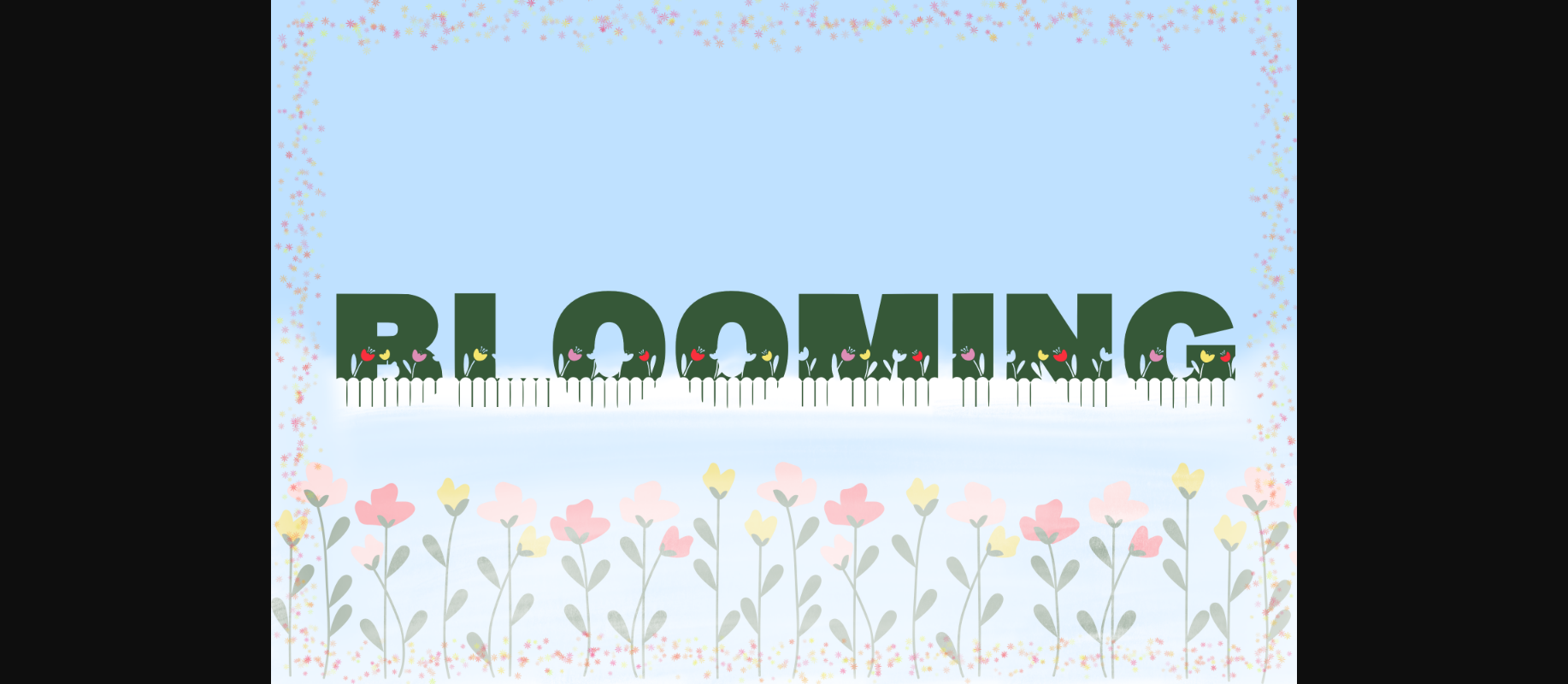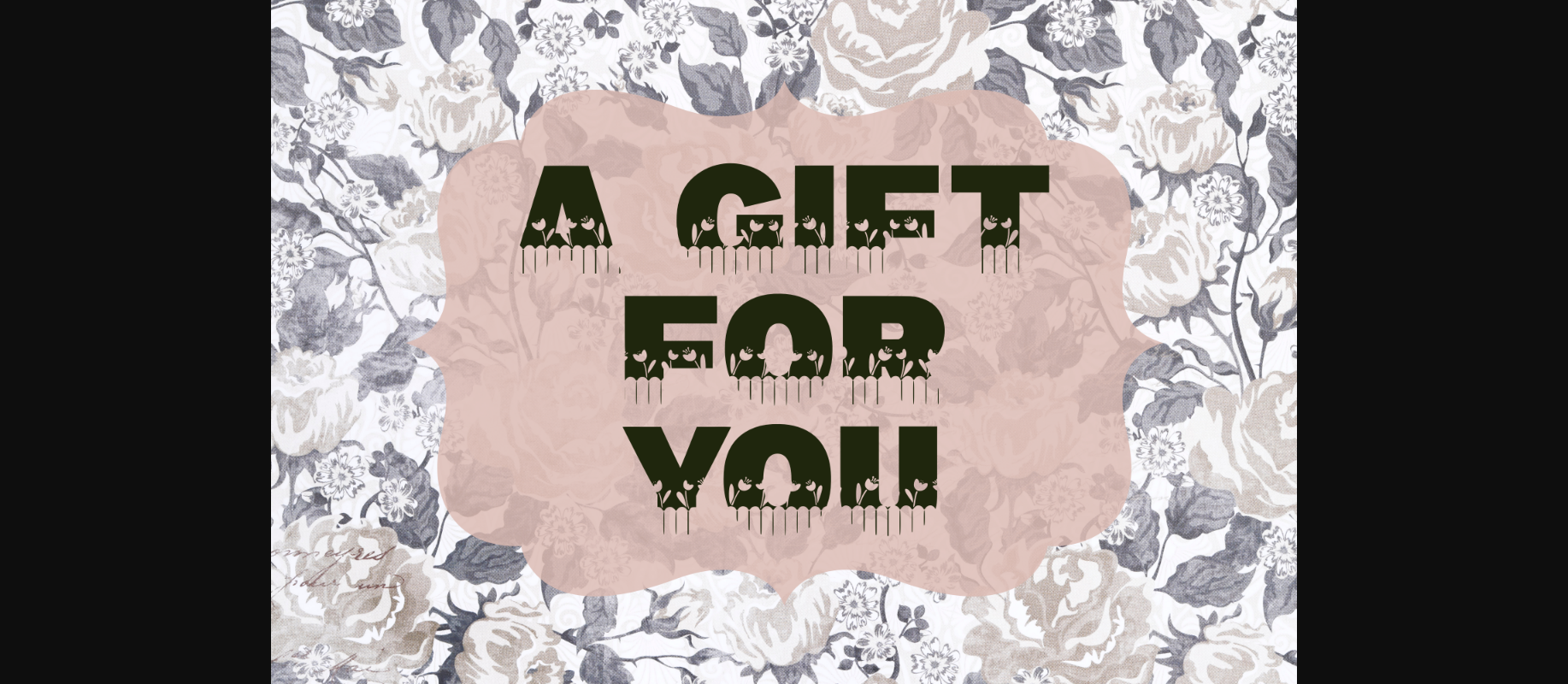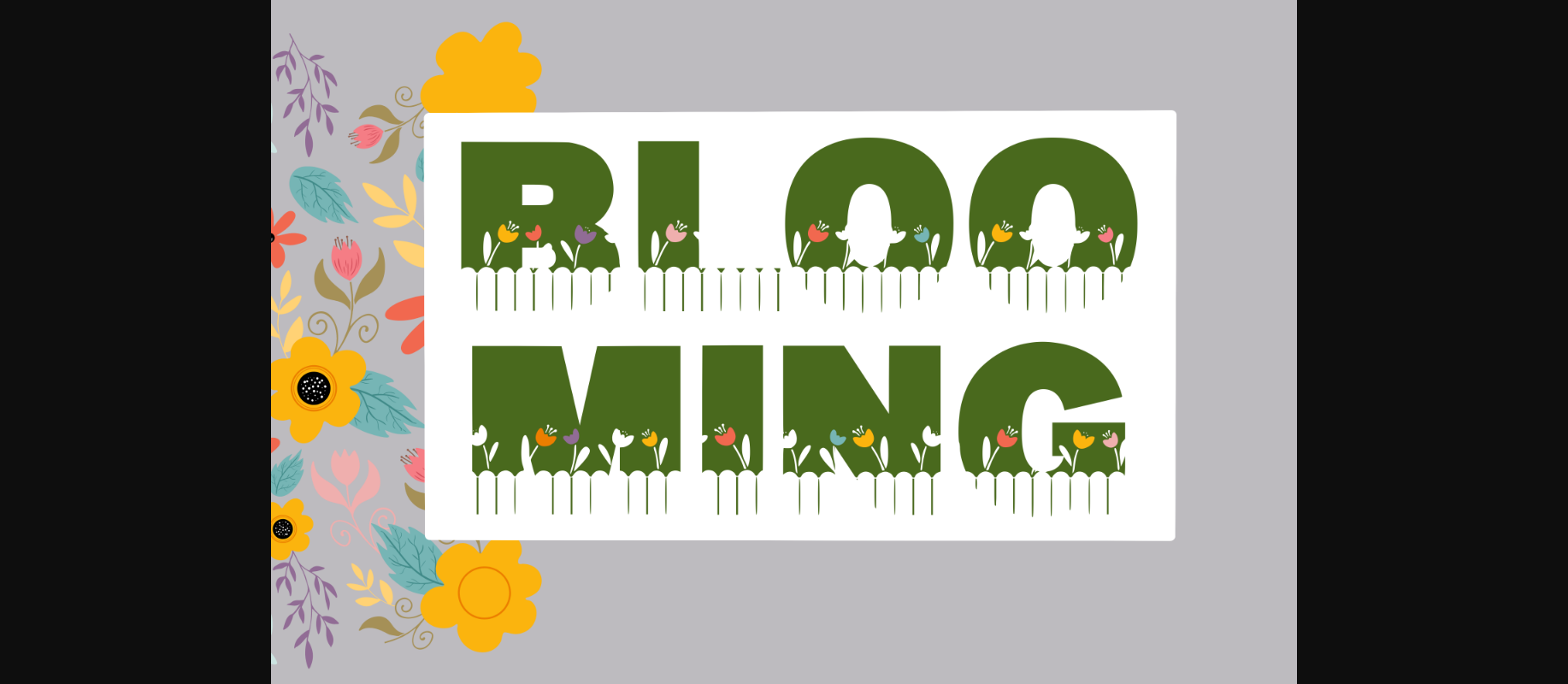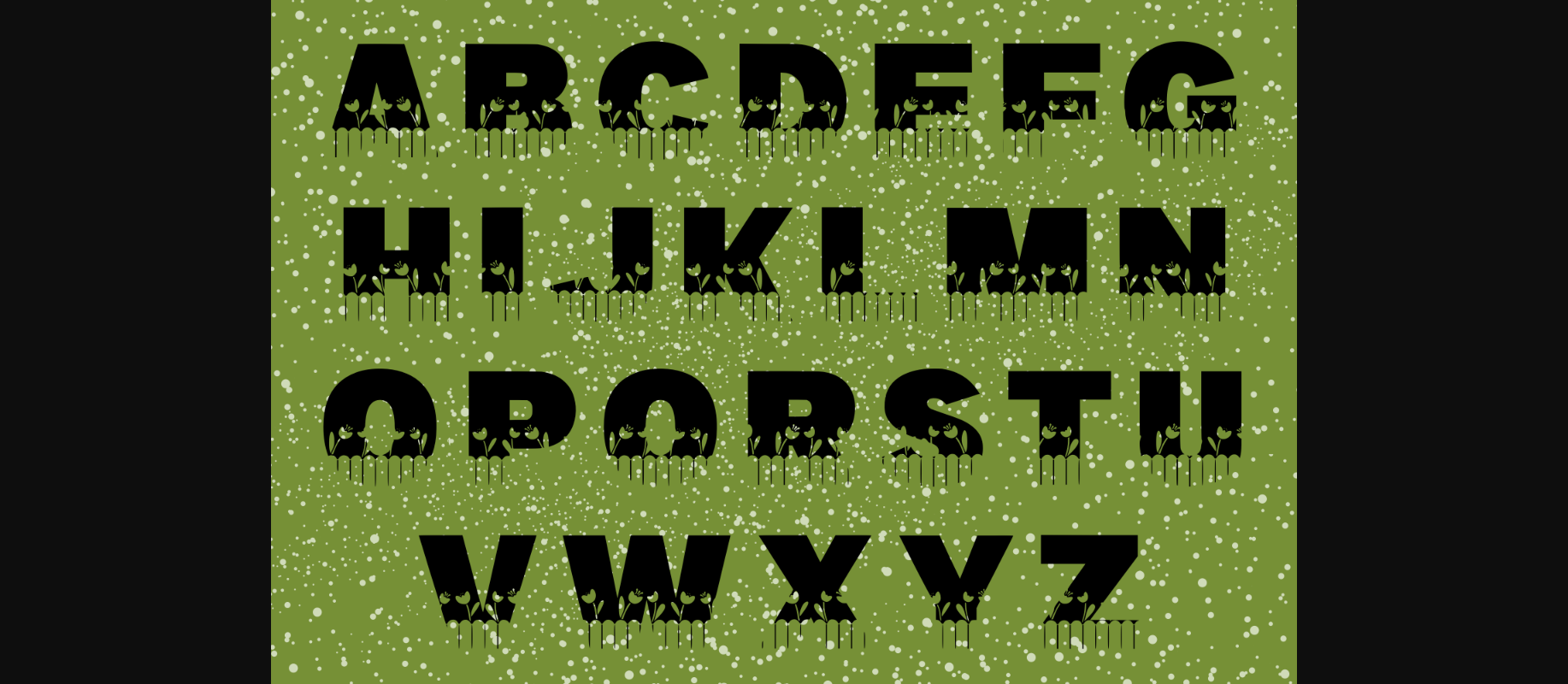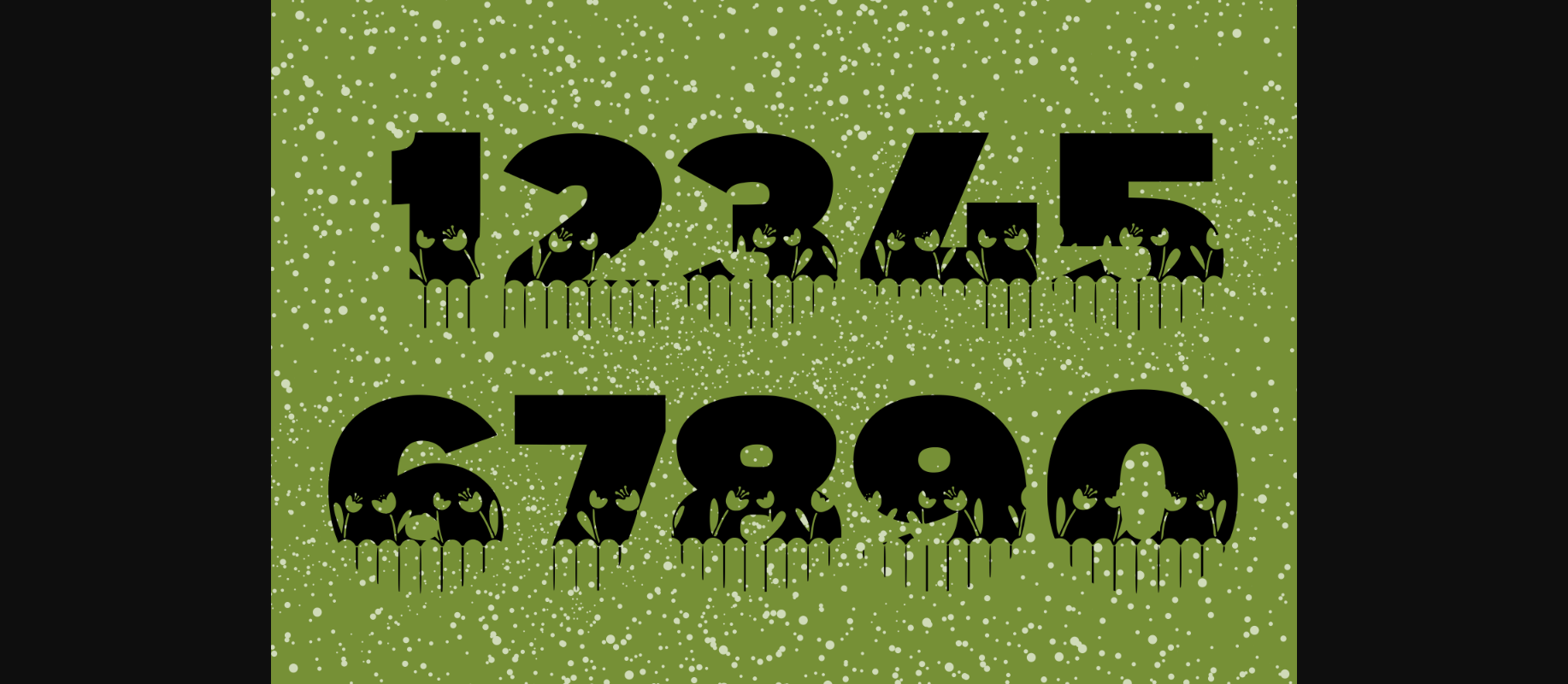
HomeDecorative FontsBlooming Font Decorative Fonts Blooming Font FacebookXPinterestWhatsApp 1 of 7 ... Blooming Font Poster 2... Blooming Font Poster 3... Blooming Font Poster 4... Blooming Font Poster 5... Blooming Font Poster 6... Blooming Font Poster 7... About Blooming Font Blooming is a beautiful decorative font perfect for greeting cards, stickers, and T-shirt designs. Add this exquisite font to your creative projects, and make them outstanding! DOWNLOAD NOW People also explored Team Purple Bella Canvas 3001 Tee Mockup Ring Font Romantic Font Doodly Font Xander Bruce Font Mint Bella Canvas 3001 Funky Tee Mockup Night Carnival Font Loving You Font The Rengol Font 246 0 TagsBlooming Font Previous articleDot Preschool FontNext articleWaves Pattern Font LEAVE A REPLY Cancel reply Comment: Please enter your comment! Name:* Please enter your name here Email:* You have entered an incorrect email address! Please enter your email address here Website: Save my name, email, and website in this browser for the next time I comment. Personal Use Free Abingdon Personal Use Free Read more about this font Fontmageddon Personal Use Free Read more about this font BD Geminis Personal Use Free Read more about this font Arabella Script Personal Use Free Read more about this font BLOG Fonts That Capture the Spirit of New York City New York City is more than just a place—it’s an experience, a rhythm, a visual language... Free Fonts Risk: Why Free Fonts Can Be Dangerous for Designers Free vs Paid Fonts: Why Investing in Premium Fonts Is Worth It How to Install and Use Fonts on Windows, macOS, and Web Projects